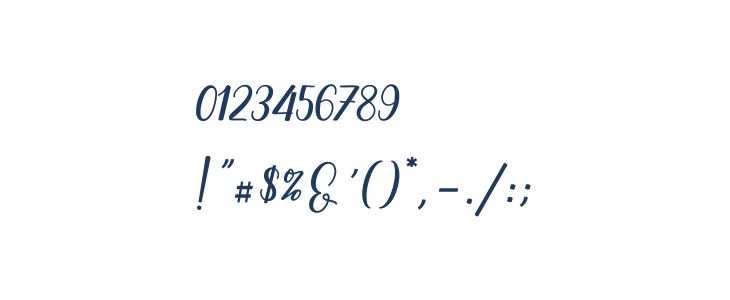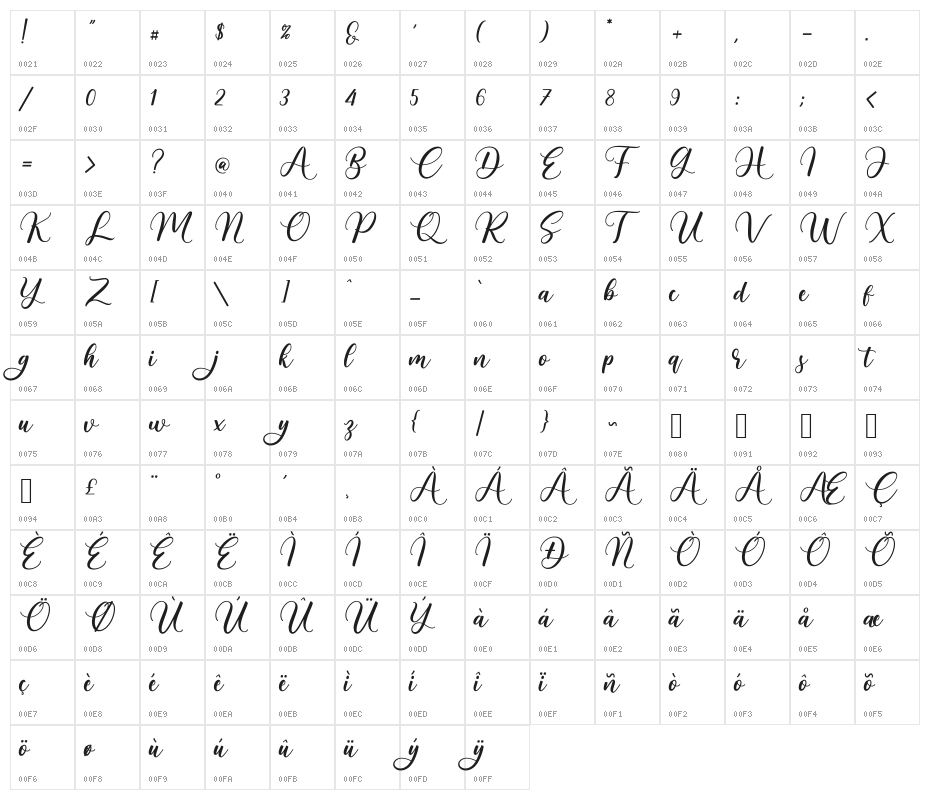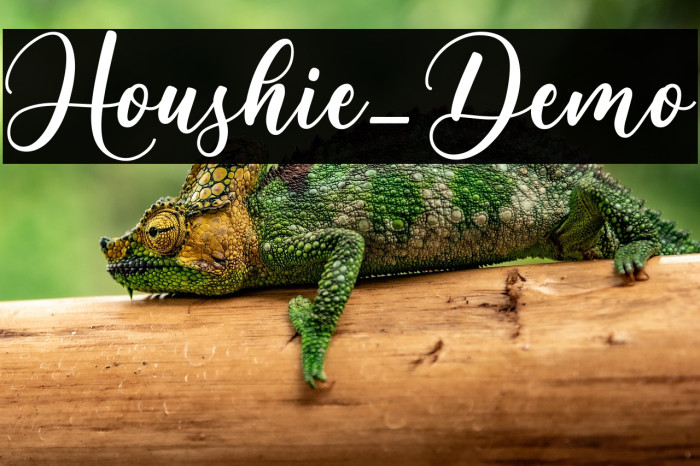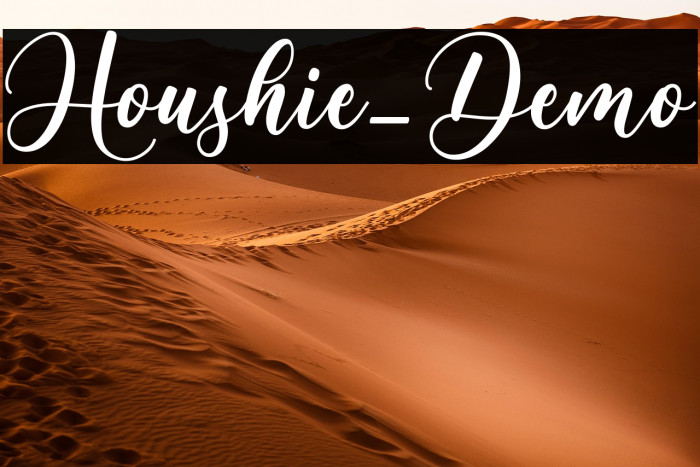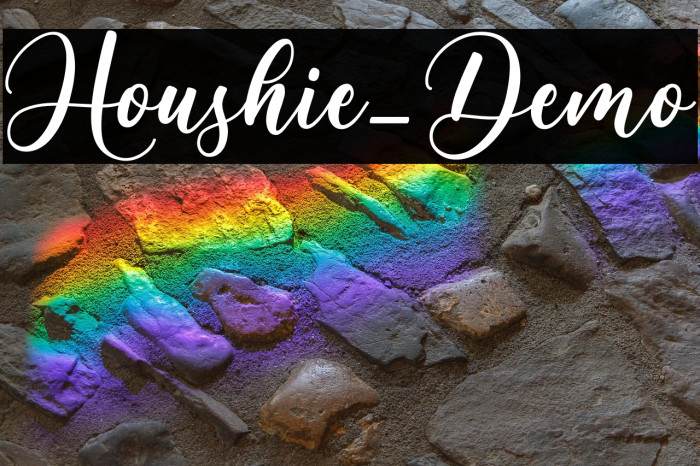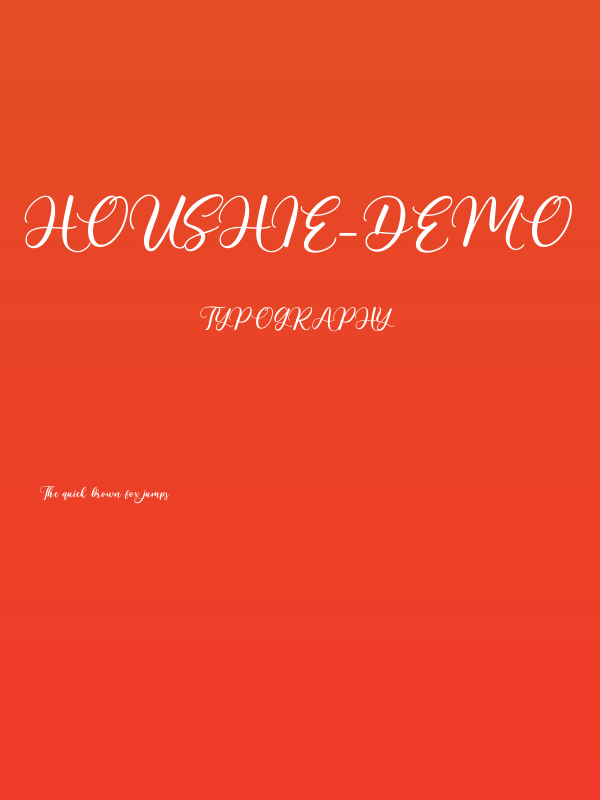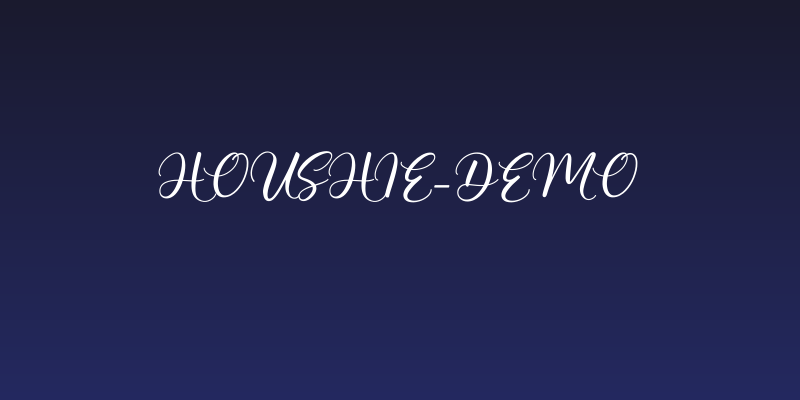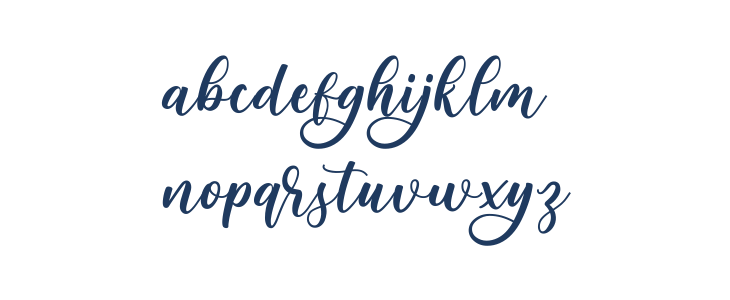
Houshie_Demo Font
Houshie_Demo Description
This elegant script font features flowing, cursive strokes that exude a sense of sophistication and grace. The uppercase letters are characterized by their sweeping curves and loops, while the lowercase letters maintain a consistent fluidity, enhancing readability. The numerals are stylish yet clear, complementing the overall aesthetic. Special characters are crafted with the same attention to detail, ensuring a cohesive look across all elements. This font is perfect for projects that require a touch of elegance and refinement, such as wedding invitations, branding, and high-end product packaging.